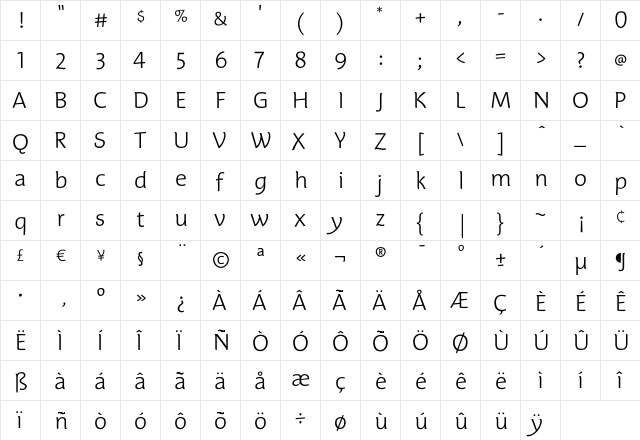
Edifice Thin Regular
| Foundry | Dimitri Castrique |
| Designer | Dimitri Castrique |
Design Context for Edifice Thin Typeface
Edifice Thin is a composed and adaptable typeface that performs quietly and consistently across a wide range of design contexts. Its slender proportions lend an understated elegance to any composition.
Pro Tip: Use Edifice Thin in both headline and body roles to test its range before committing to a single application.